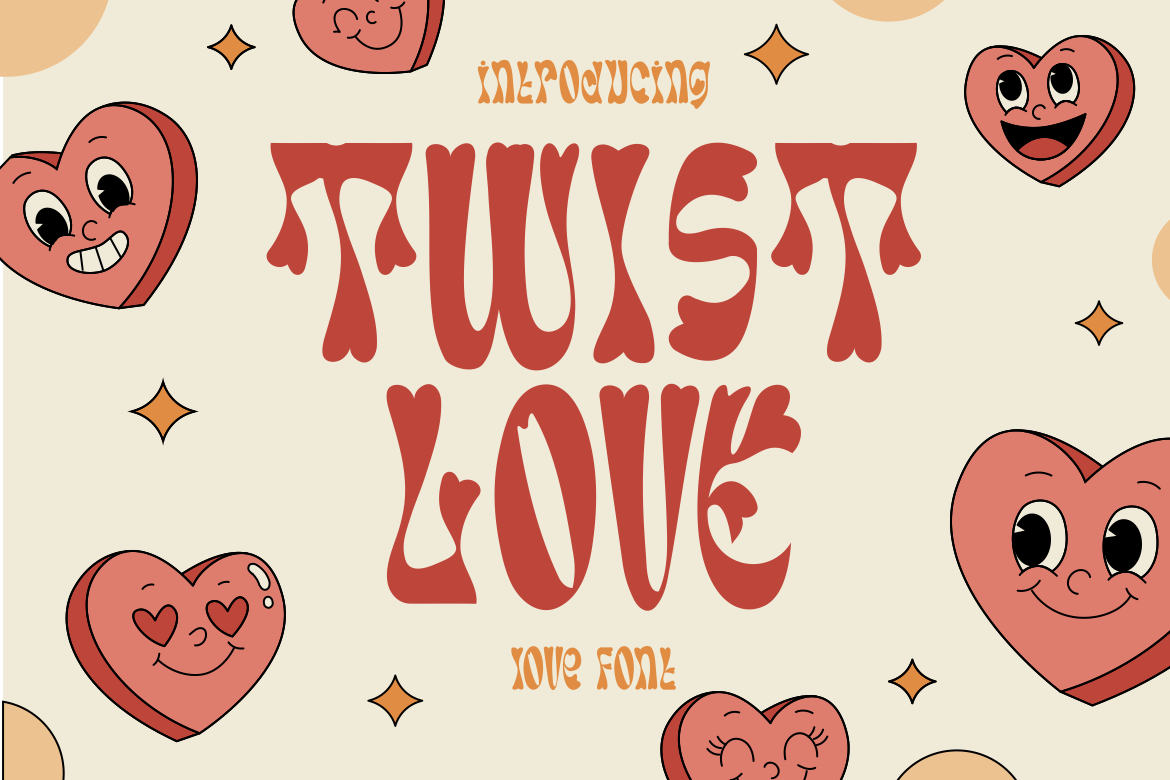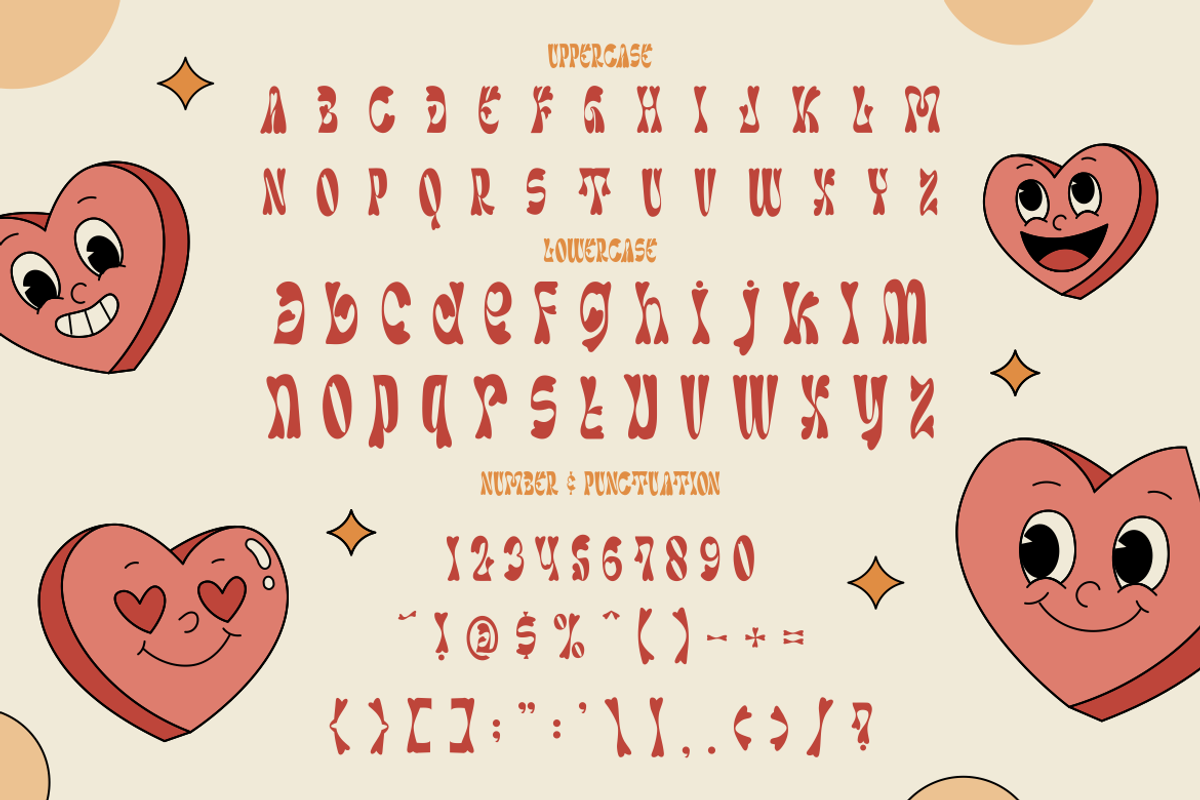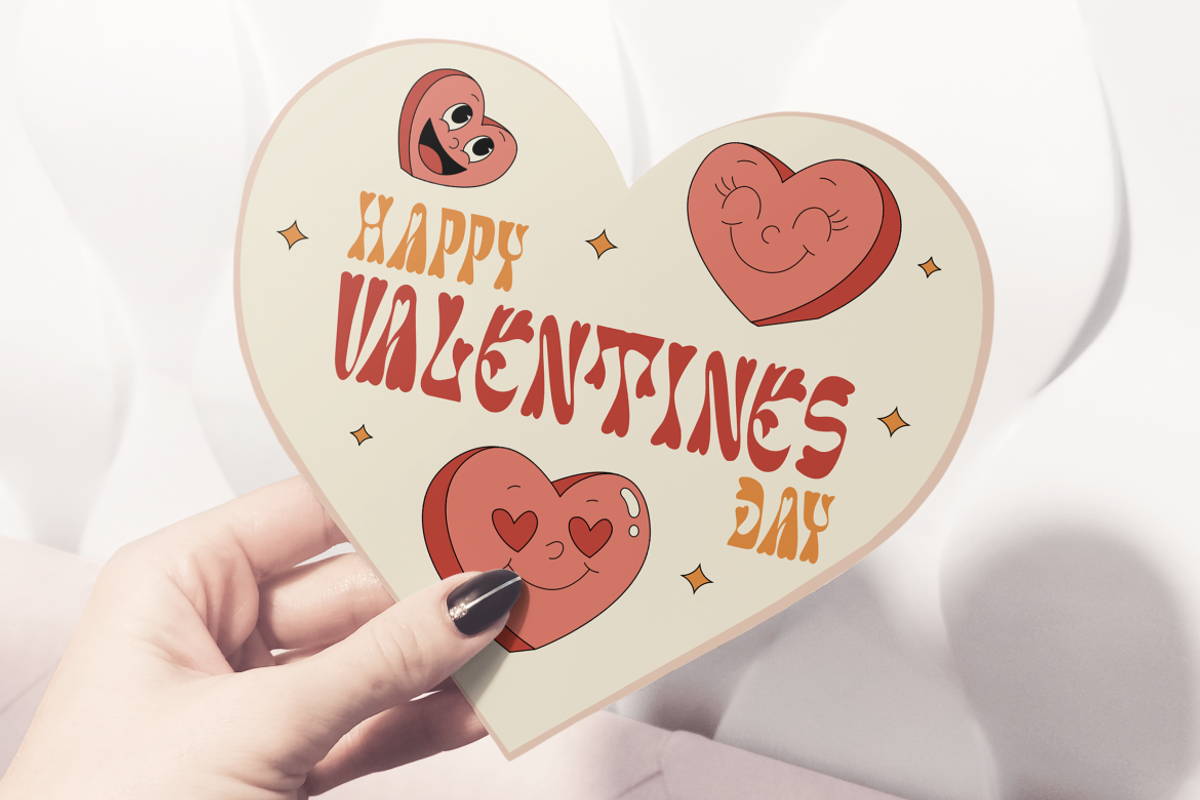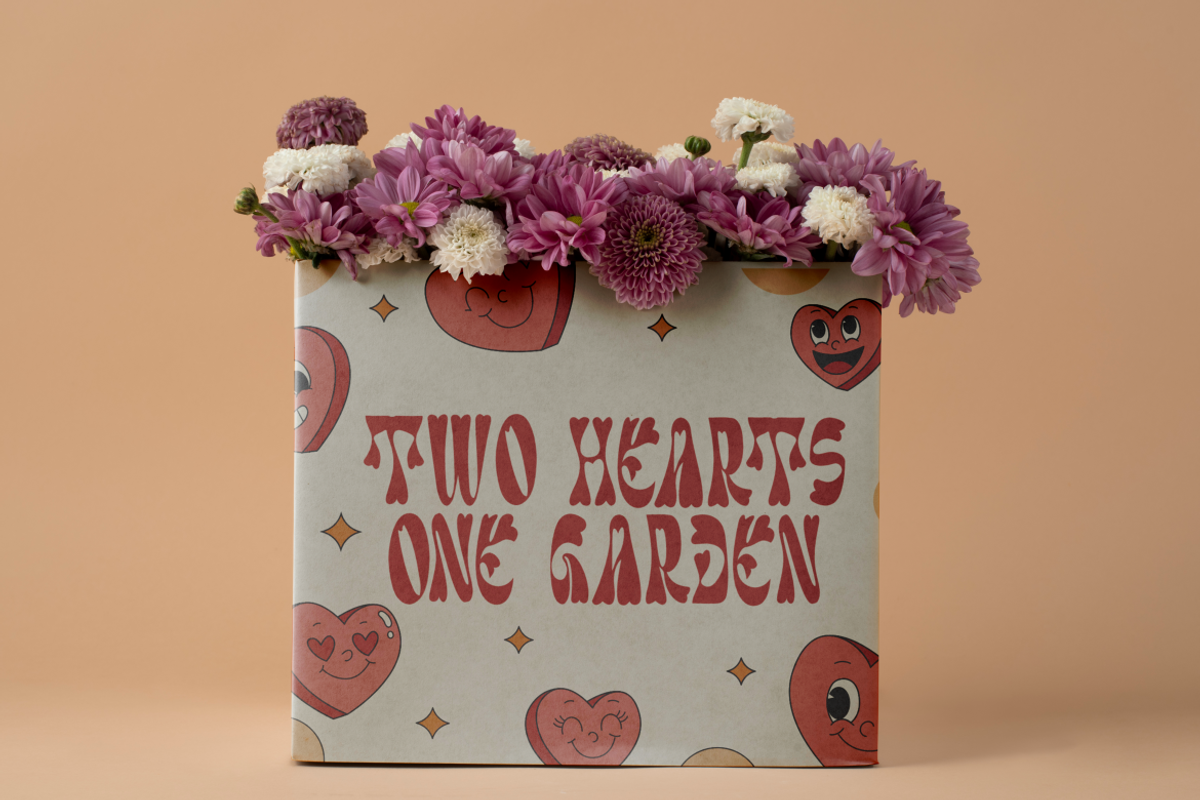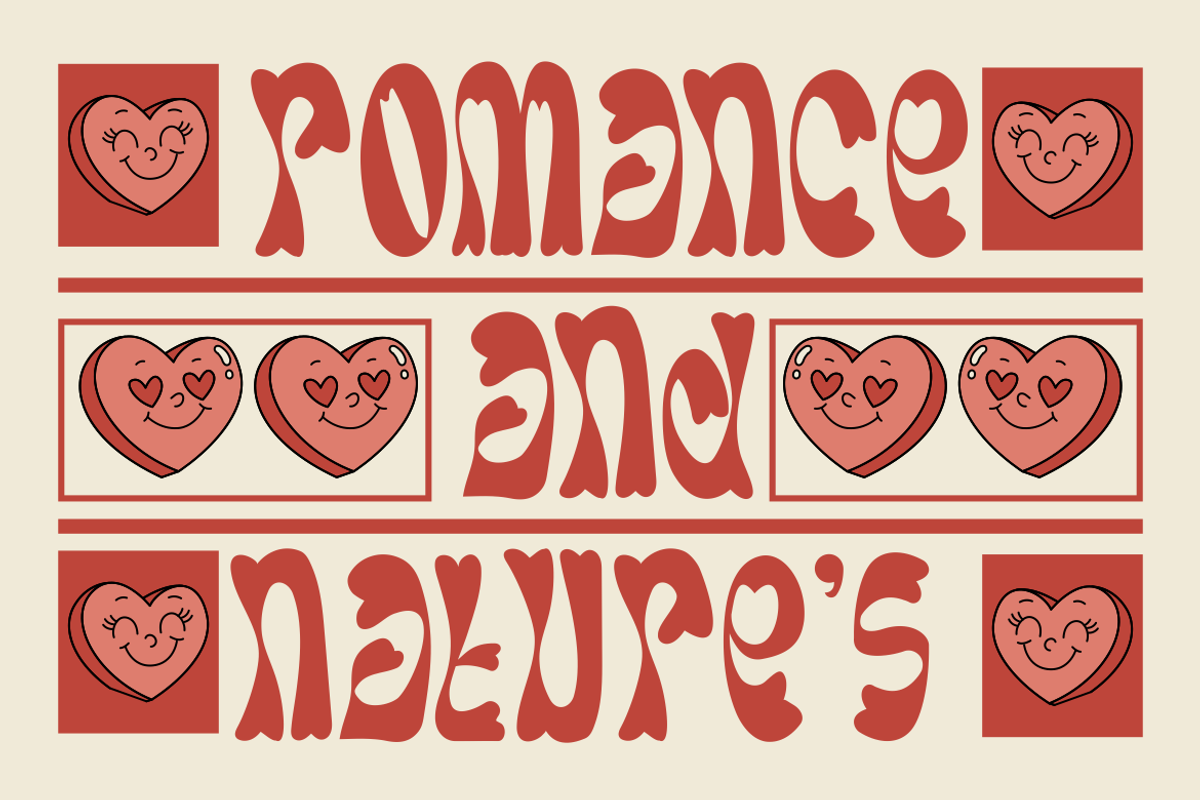
Twist Love Valentine Font
Twist Love – Love Font is a bold and charming typeface inspired by retro aesthetics and heart-shaped details. Each letter carries flowing curves, playful forms, and a soft vintage vibe that brings out both romance and fun. The font design captures the essence of love celebrations with quirky shapes that look like melting or twisting drops, making every word feel alive and affectionate. With its unique balance of boldness and whimsy, Twist Love is a perfect choice for projects that need to stand out with warmth and personality.
This font works beautifully for Valentine’s Day cards, romantic packaging, wedding invitations, posters, stickers, social media graphics, and branding projects with a love-centered theme. Its bold style ensures high readability, while the creative letterforms add a nostalgic retro feeling to your designs. Twist Love is designed to give your messages a heartfelt voice, making it versatile for both personal and commercial use. From fun greeting cards to memorable logo marks, this font transforms simple words into emotional expressions.